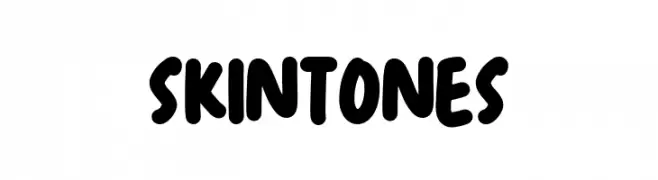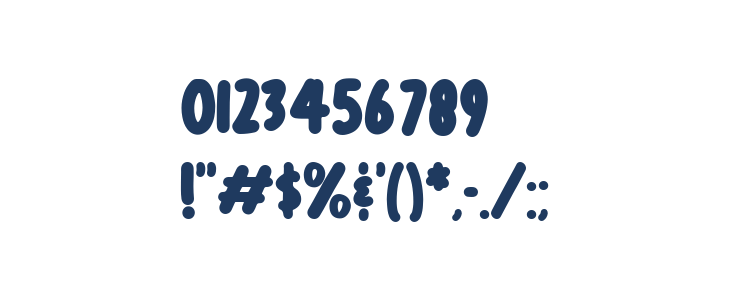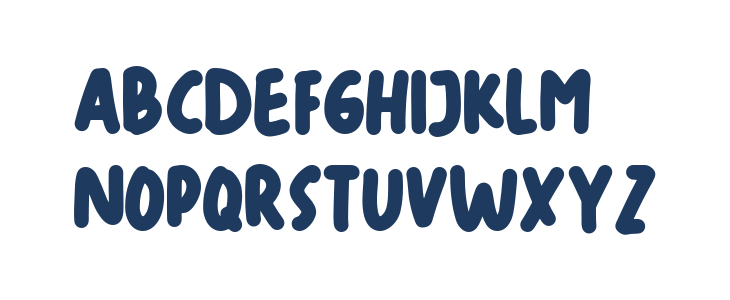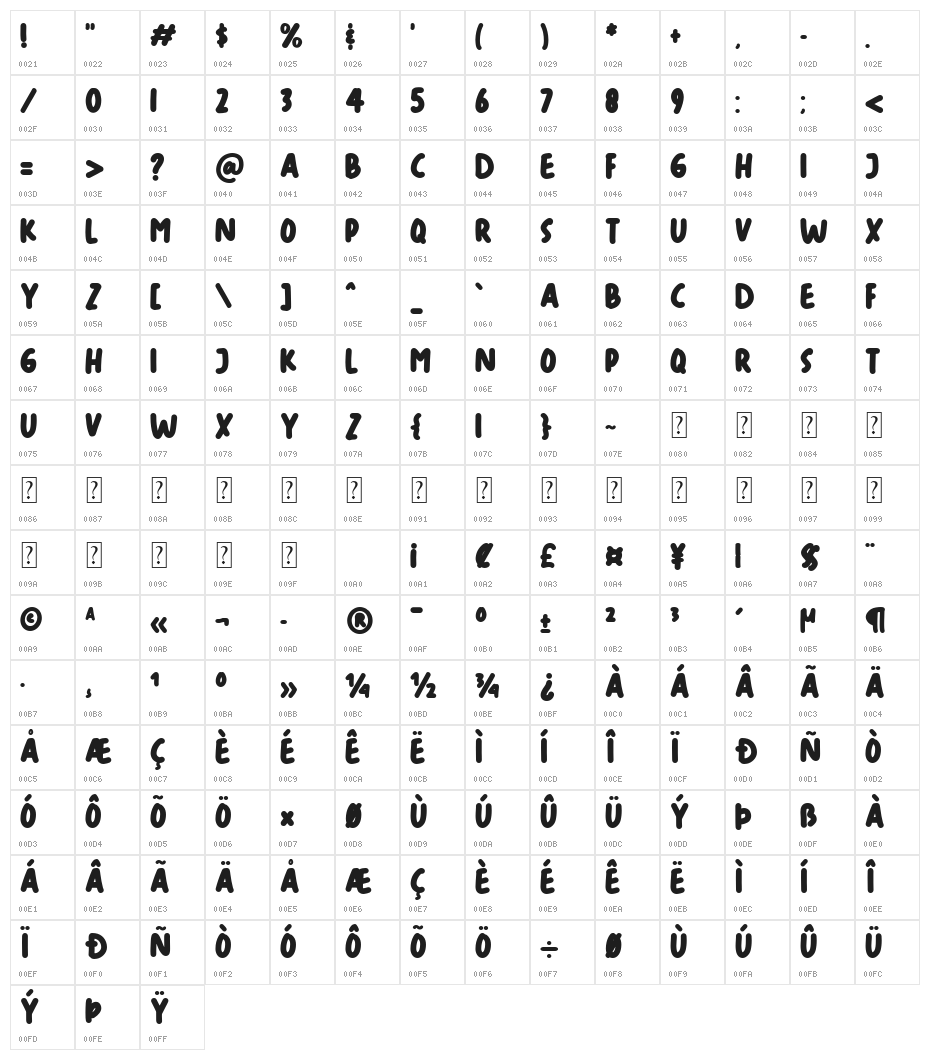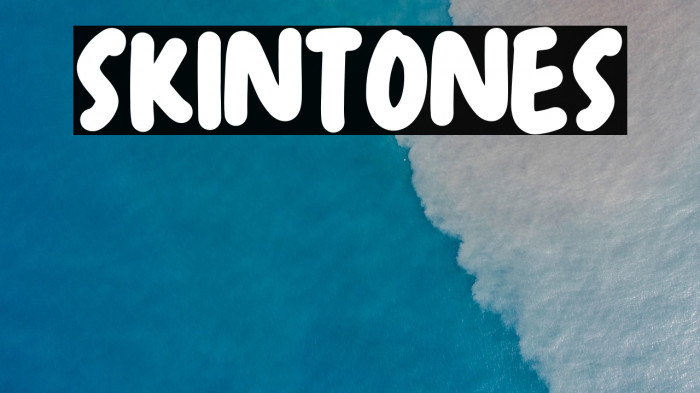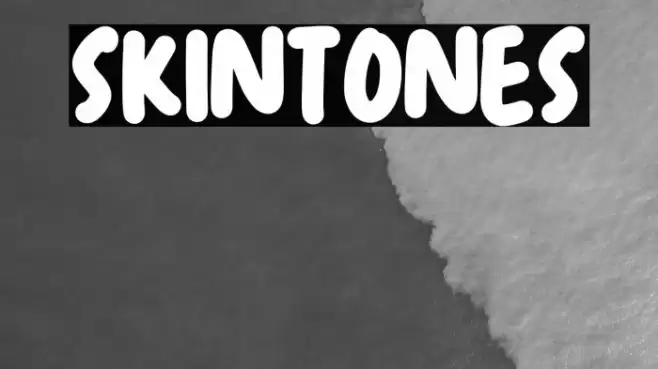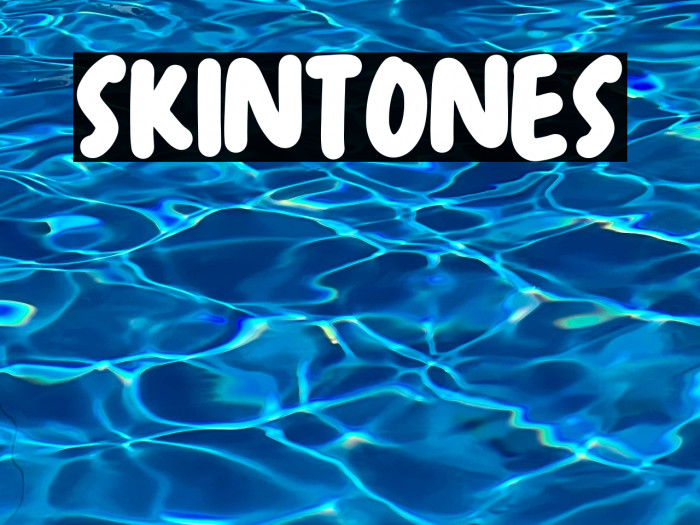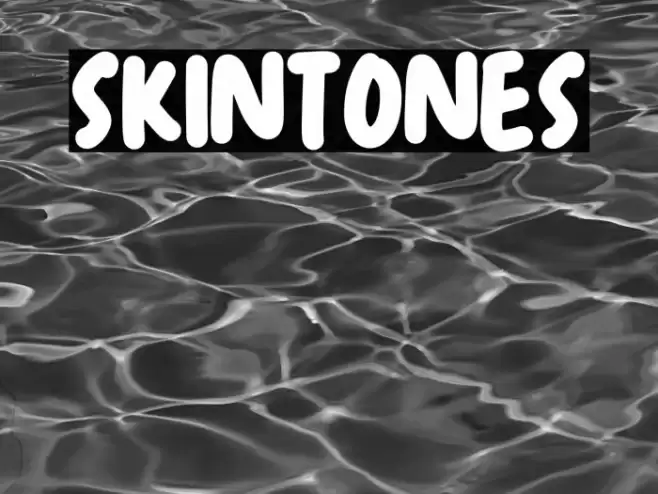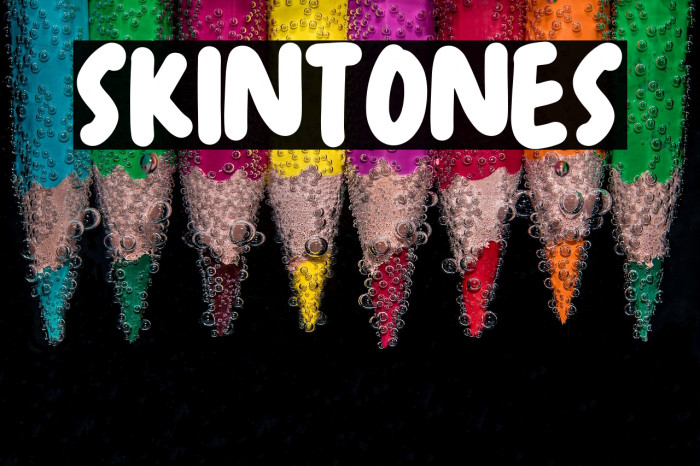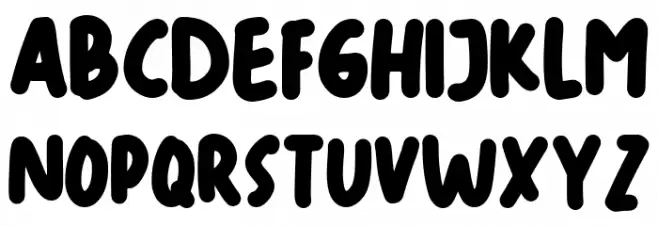
Skintones Font
Skintones Description
A bold, rounded, playful display font with a casual and friendly appearance.
| Overall Style | Playful, Casual, Friendly |
| Use Case | Headlines, Logos, Posters, Packaging |